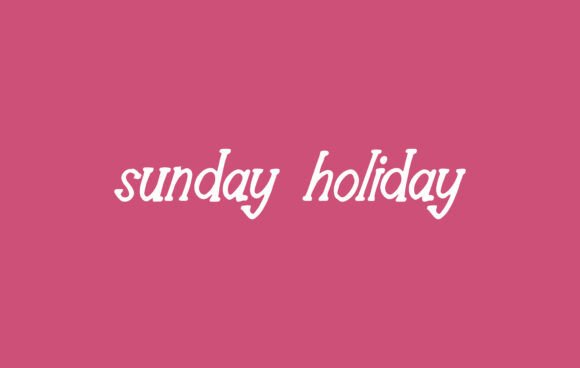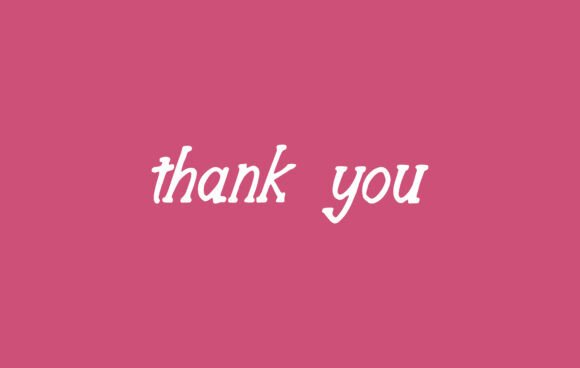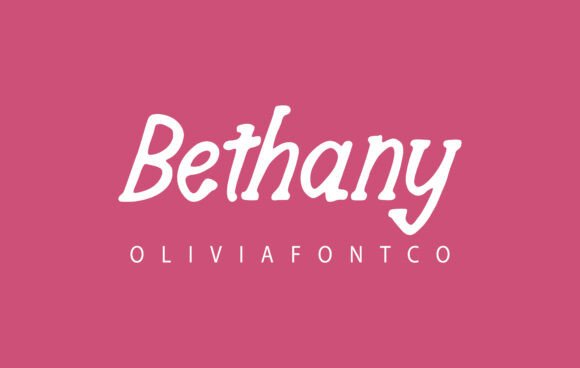
Bethany Font: Elevate Your Designs with a Romantic Handwritten Touch
In the world of typography, a well-crafted font can make all the difference in bringing your creative visions to life. If you’re a designer, crafter, or DIY enthusiast looking for a unique and authentic handwritten font with a romantic touch, look no further than Bethany Font. This beautifully designed font is poised to become your new favorite, offering endless possibilities for elevating your projects to new heights.
The Charm of Bethany Font
Bethany Font is an authentic handwritten font that exudes a sense of romance and elegance. Its carefully crafted letters are designed to evoke a sense of warmth and personality, making it perfect for a wide range of creative applications. Whether you’re working on a magazine headline, social media post, branding campaign, wedding invitation, or greeting card, Bethany Font is sure to add a touch of sophistication and whimsy to your design.
Key Features of Bethany Font
• Legibility**: One of the standout features of Bethany Font is its exceptional legibility. The font is designed to be easy to read, making it perfect for use as both title and body text.
• Romantic Touch**: The handwritten nature of Bethany Font gives it a unique, romantic quality that sets it apart from more traditional fonts.
• Versatility**: With its elegant and approachable design, Bethany Font is suitable for a wide range of projects, from formal events like weddings to more casual applications like social media graphics.
Design Possibilities with Bethany Font
The versatility of Bethany Font makes it an excellent choice for various design projects. Here are some ideas to get you started:
• Magazine Headlines**: Add a touch of elegance to your magazine or editorial design with Bethany Font. Its romantic and eye-catching style is sure to grab readers’ attention.
• Social Media Graphics**: Elevate your social media presence with custom graphics featuring Bethany Font. It’s perfect for creating engaging posts, stories, and ads that stand out.
• Branding and Packaging**: Establish a unique brand identity with Bethany Font. Its distinctive style can help your brand stand out and leave a lasting impression on customers.
• Wedding Invitations and Stationery**: Make your wedding invitations, cards, and stationery truly special with Bethany Font. Its romantic touch adds a personal and heartfelt feel to your wedding stationery.
Why Choose Bethany Font?
In a sea of fonts, Bethany Font stands out for its unique blend of elegance, legibility, and romantic charm. Here are a few reasons why designers and crafters are falling in love with this font:
• Unique Style**: Bethany Font offers a distinctive handwritten style that’s hard to find in more traditional fonts.
• Ease of Use**: With its excellent legibility, Bethany Font is easy to use for both title and body text, making it a versatile addition to your font library.
• Emotional Connection**: The romantic touch of Bethany Font helps create an emotional connection with your audience, making your designs more impactful and memorable.
Bethany Font is more than just a font – it’s a design tool that can help you bring your creative ideas to life. With its authentic handwritten style, romantic touch, and exceptional legibility, it’s the perfect choice for designers and crafters looking to add a touch of elegance and whimsy to their projects. Whether you’re working on a magazine headline, social media graphic, wedding invitation, or branding campaign, Bethany Font is sure to become your go-to font for all your creative endeavors.